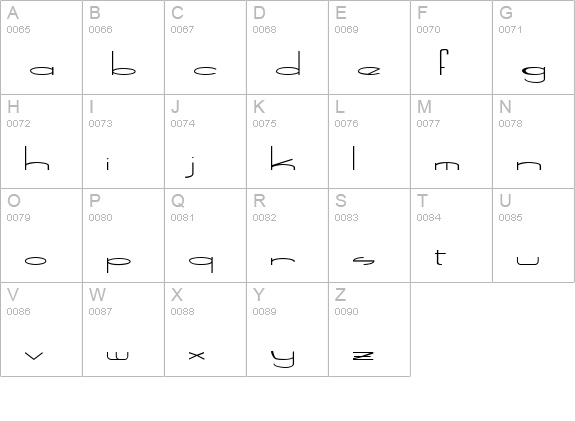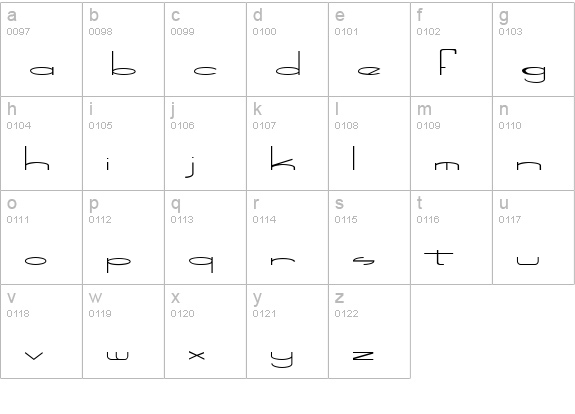
Speed Bowling font is a bold and energetic typeface that perfectly captures the spirit of the fast-paced sport. Its sleek and dynamic letterforms exude a sense of movement, making it the ideal choice for any design project seeking to convey speed, power, and excitement. With its strong lines, sharp edges, and distinctive geometric shapes, this font commands attention and leaves a lasting impression. Not only does Speed Bowling font deliver an eye-catching visual impact, but it also offers versatility and legibility. Its carefully crafted letterforms ensure readability across different sizes and mediums, making it suitable for a wide range of applications. Whether it's used in headlines, logos, posters, or any other design, Speed Bowling font stands out with its modern and unique aesthetic. What makes Speed Bowling font even more appealing is that it is available for free download at FontsMarket.com. This means that designers, creatives, and enthusiasts can effortlessly access this remarkable font without any cost. By offering this font freely, FontsMarket.com allows individuals to explore their creativity and elevate their designs without any financial barriers. In conclusion, Speed Bowling font is a striking and versatile typeface that captures the essence of speed and power. With its bold design and excellent legibility, it is a valuable asset for any design project. And thanks to its availability for free download at FontsMarket.com, it empowers designers to unleash their creativity without any limitations.